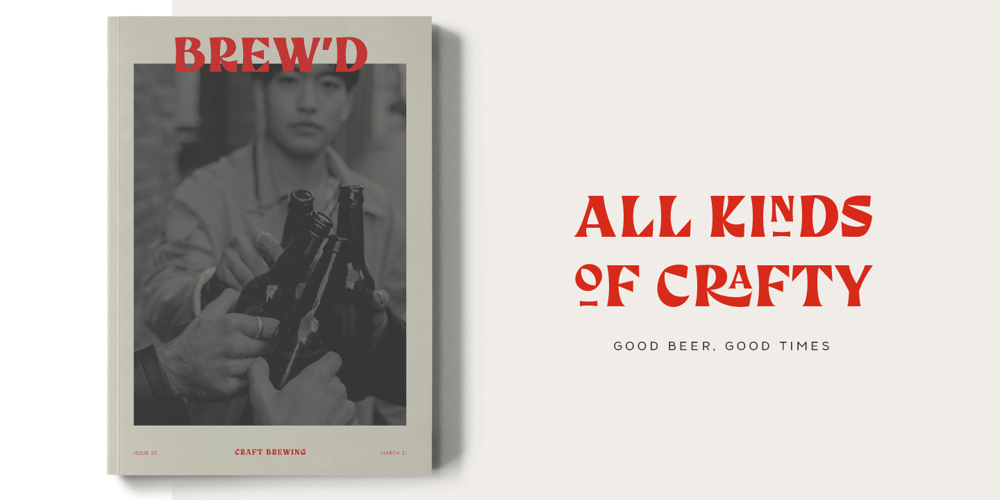
Something New Font Family was designed by Adam Greasley and published by wearecolt. Something New contains 2 styles and family package options. Something New has been designed with logo designers and typographers firmly in mind. This feature-packed display font is a perfect addition to your design arsenal, ready for your next logotype, heavy heading or beer label.”A stylish mix of serif and blackletter”Great for; logos, branding materials, business cards, gift cards, t-shirt, print, posters, quotes, etc.